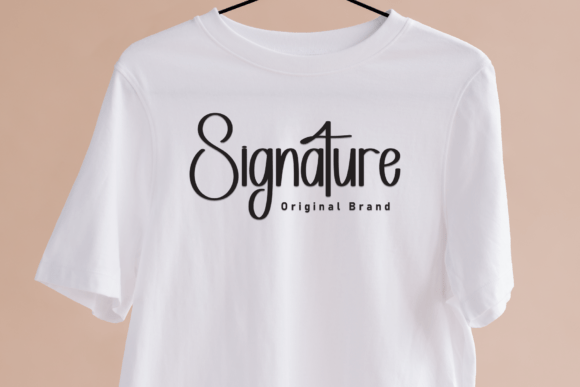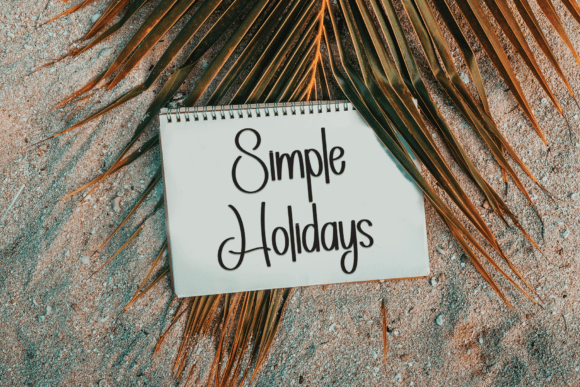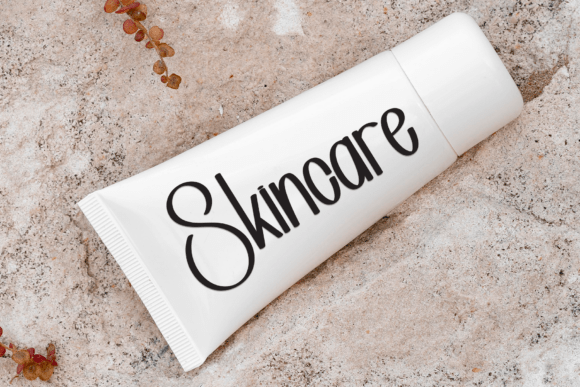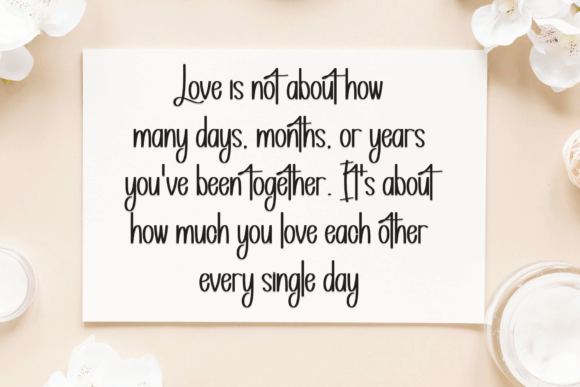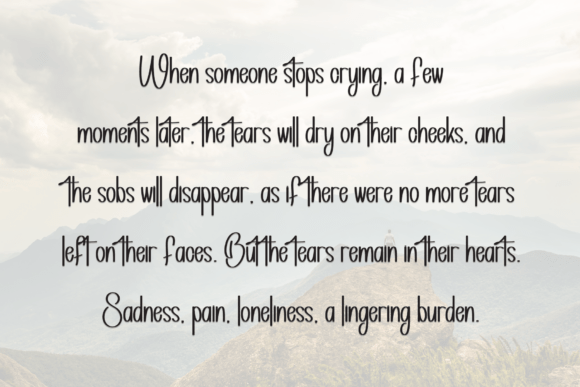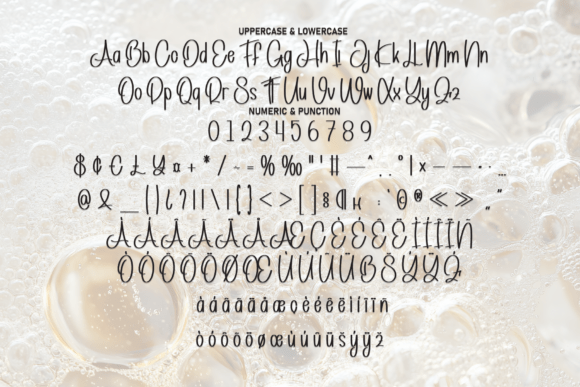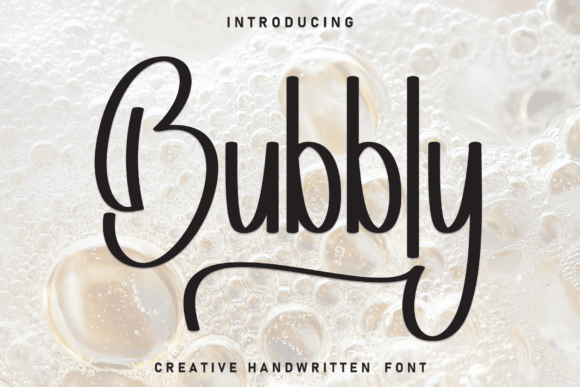
Bubbly Font: The Ultimate Choice for Adding a Touch of Whimsy to Your Designs
Are you on the hunt for a font that radiates warmth, playfulness, and an undeniable charm? Look no further than the Bubbly Font, a stunning handwritten font that is sure to capture the hearts of designers and crafters alike. With its unique blend of elegance and whimsy, this beautiful font is perfect for adding a touch of personality to wedding invites, greeting cards, and any design that needs a dash of fun and allure.
The Quintessential Charm of Bubbly Font
At first glance, the Bubbly Font is instantly recognizable for its warm and welcoming aura. Its carefully crafted letters seem to dance across the page, imbuing any design with a sense of joy and playfulness. Whether you’re looking to create a wedding invitation that exudes romance and whimsy or a greeting card that conveys warmth and personality, this font is sure to deliver.
One of the key features that sets the Bubbly Font apart is its unique blend of elegance and playfulness. The font’s handwritten style gives it a distinctly personal touch, making it perfect for designs that need to convey a sense of warmth and approachability. At the same time, its precision-crafted letters ensure that it remains highly legible, even at smaller sizes.
Perfect for Wedding Invites and Greeting Cards
Wedding invites and greeting cards are two of the most popular uses for the Bubbly Font, and it’s easy to see why. The font’s romantic and whimsical style makes it perfect for wedding invitations that need to convey a sense of joy and celebration. Similarly, its warm and playful personality makes it ideal for greeting cards that need to convey a sense of friendship and affection.
Whether you’re a designer looking to offer your clients a unique and eye-catching font option or a crafter looking to add a personal touch to your DIY projects, the Bubbly Font is an excellent choice. Its versatility and charm make it suitable for a wide range of design applications, from digital projects to print materials.
Painstakingly Crafted with Precision
The Bubbly Font is more than just a beautiful and charming font – it’s also a precision-crafted design tool that has been carefully honed to deliver exceptional results. Each letter has been meticulously crafted to ensure that it is both visually appealing and highly legible, making it perfect for designs that require a high level of precision and attention to detail.
The font’s creator has clearly taken the time to perfect every detail, from the subtle variations in letter width to the careful balance of curves and lines. The result is a font that is not only beautiful but also highly functional, making it an excellent addition to any designer’s or crafter’s toolkit.
Augmenting Your Artistic Endeavors with Whimsicality
One of the most significant benefits of the Bubbly Font is its ability to add a unique touch of whimsicality to your designs. Whether you’re looking to create a playful and eye-catching logo or a beautiful and elegant wedding invitation, this font is sure to bring a dash of personality and charm to your project.
The font’s whimsical style makes it perfect for designers and crafters who want to create designs that stand out from the crowd. Its unique blend of elegance and playfulness gives it a distinctive character that is sure to capture the hearts of anyone who sees it.
In conclusion, the Bubbly Font is a truly exceptional font that is sure to become a favorite among designers and crafters. Its unique blend of elegance and whimsy makes it perfect for a wide range of design applications, from wedding invites and greeting cards to logos and digital projects.
Whether you’re looking to add a touch of personality to your designs or simply want to create something truly special, the Bubbly Font is an excellent choice. Its precision-crafted letters, warm and welcoming aura, and undeniable charm make it a must-have font for anyone looking to elevate their designs to the next level.